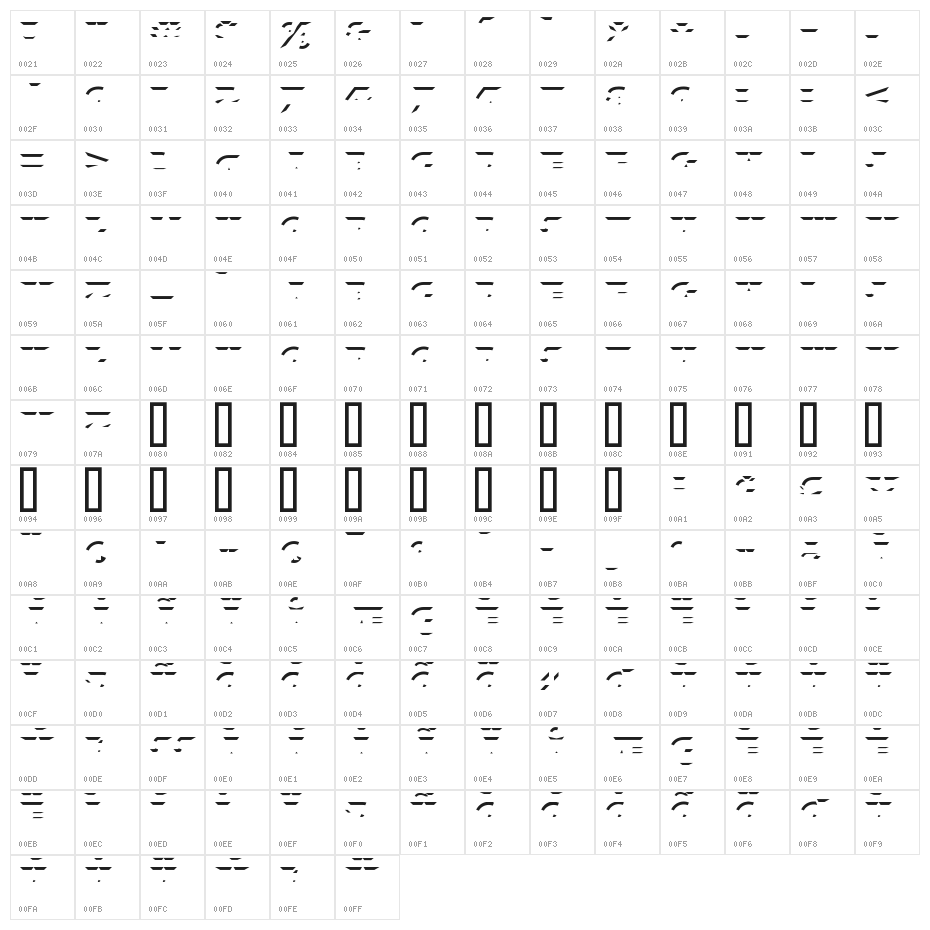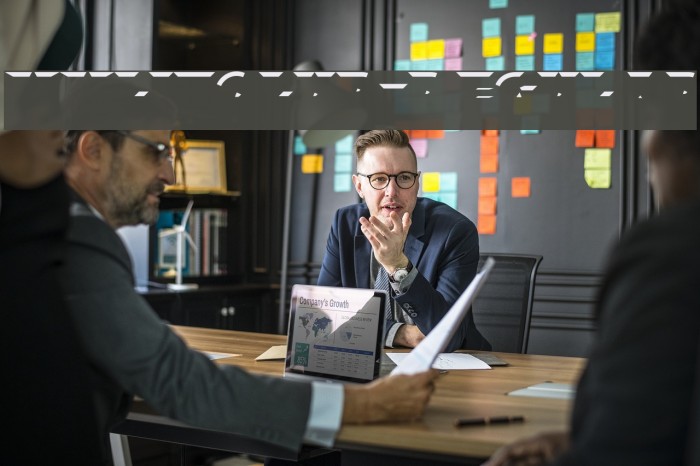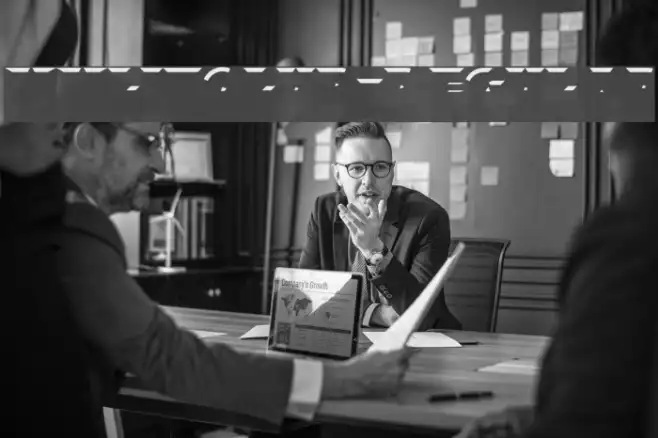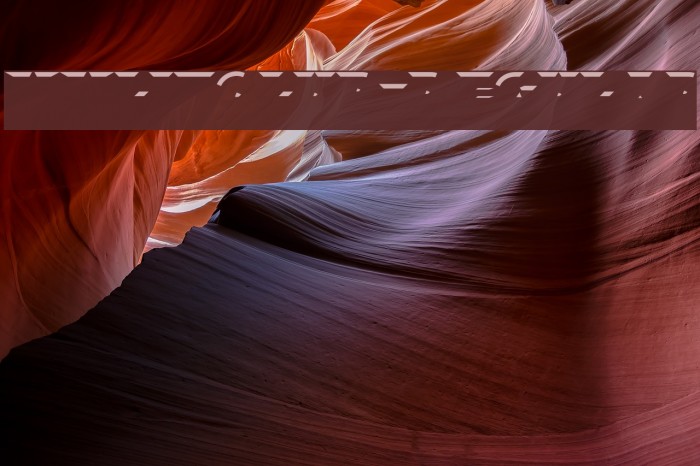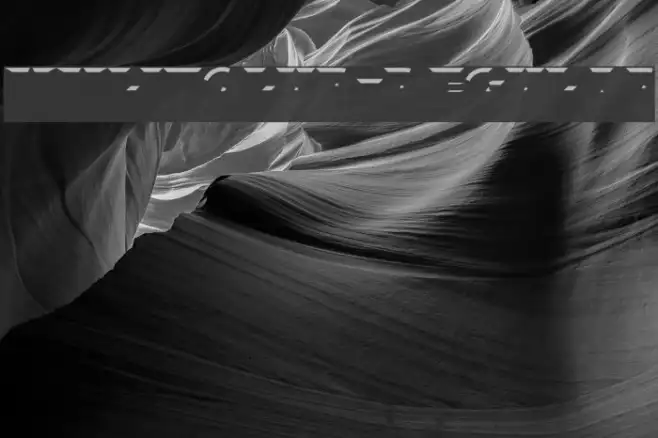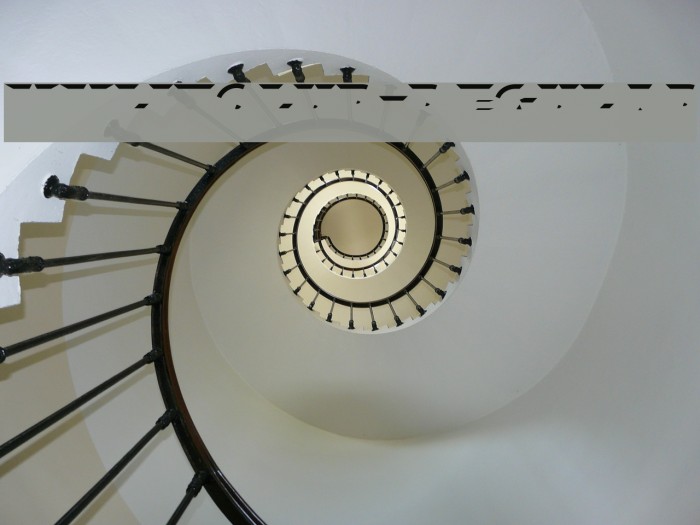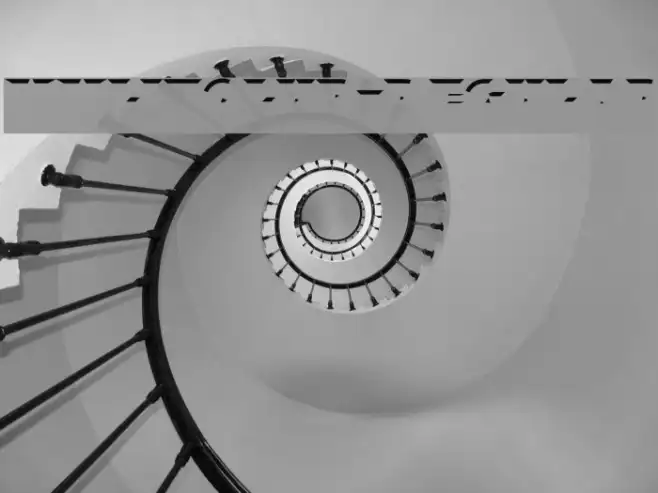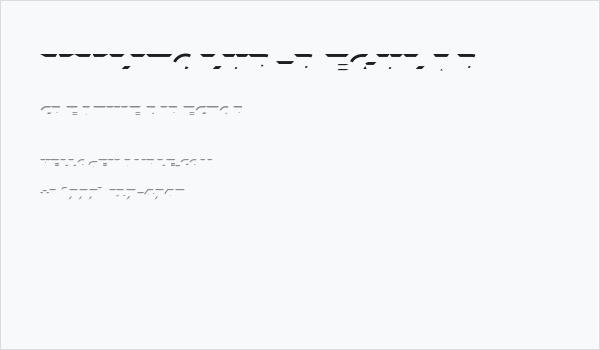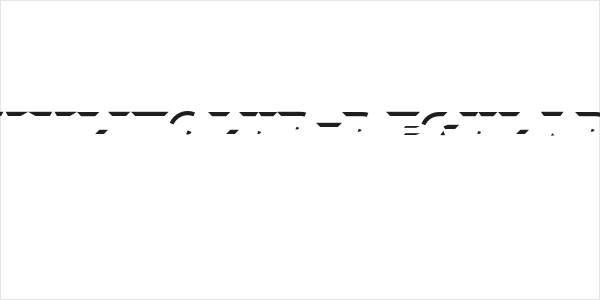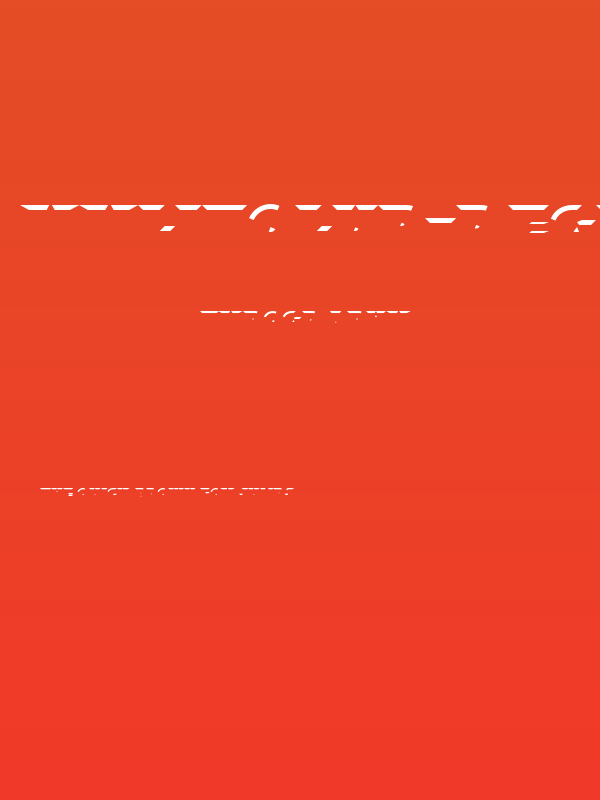
XylitolUp-Regular Font
XylitolUp-Regular Description
This font features a modern, geometric design with a futuristic aesthetic. The characters are composed of sharp angles and clean lines, creating a sense of precision and clarity. The uppercase and lowercase letters maintain a consistent style, with a focus on symmetry and balance. The numerals and special characters follow the same design principles, ensuring uniformity across the typeface. The overall appearance is sleek and contemporary, making it suitable for projects that require a cutting-edge look.
| Use Case | Logos, Headlines, Digital interfaces |
| Proposed Projects | Ideal for tech branding, futuristic posters, digital interfaces, and modern art designs. |